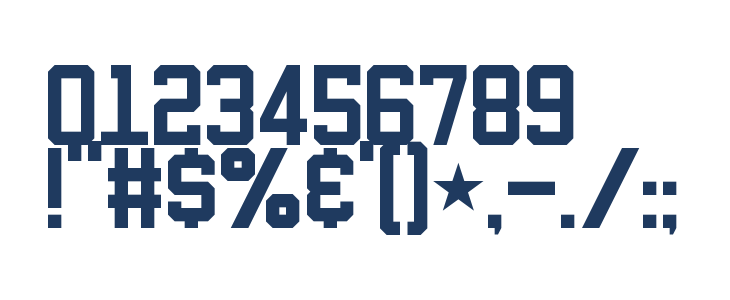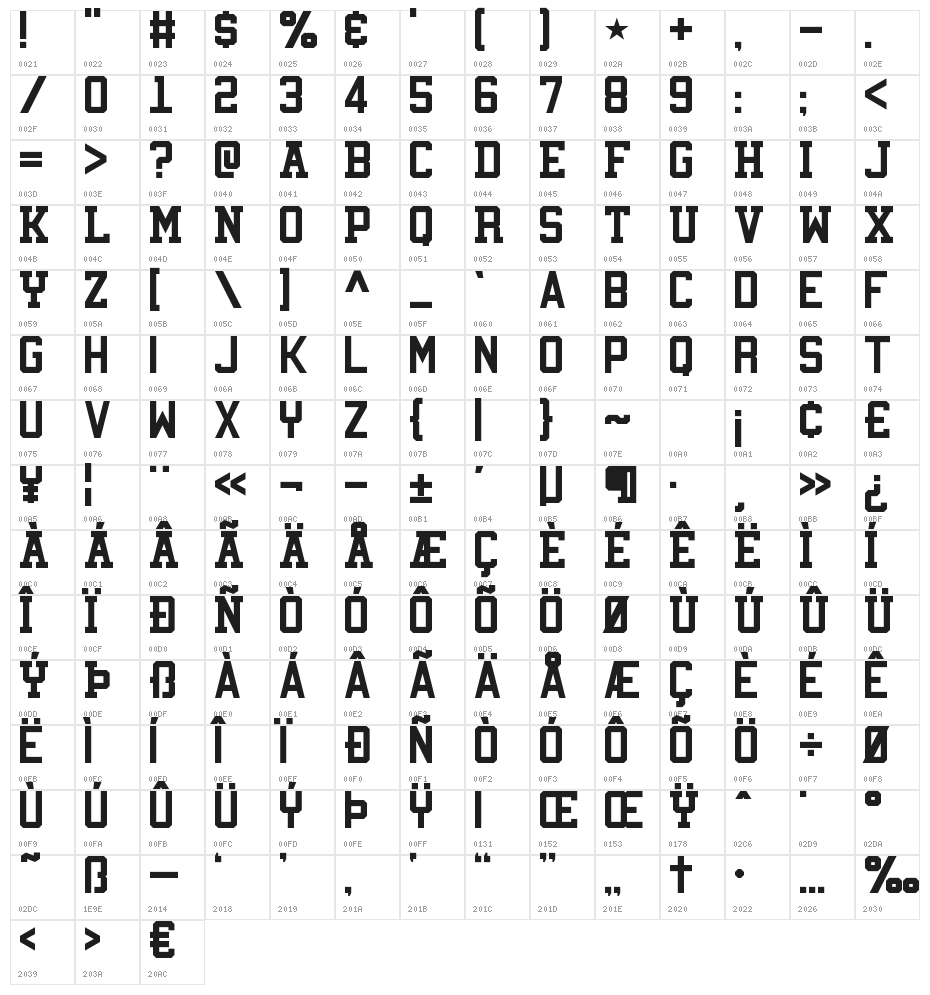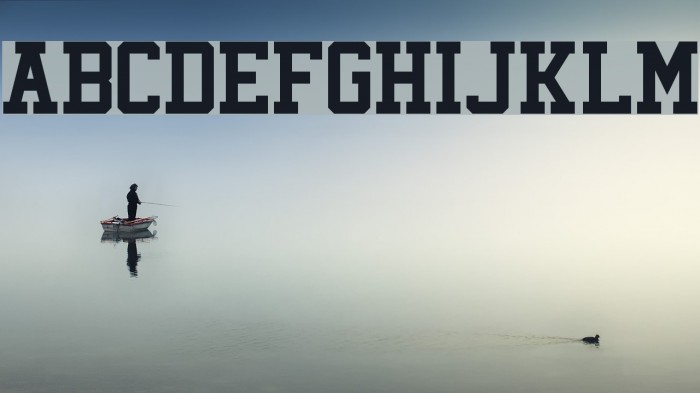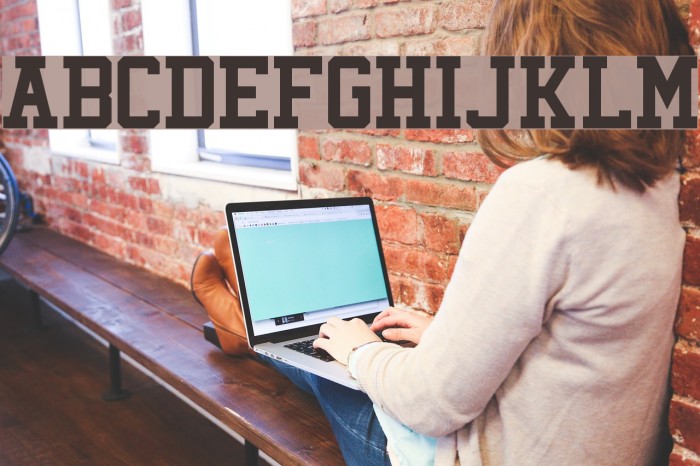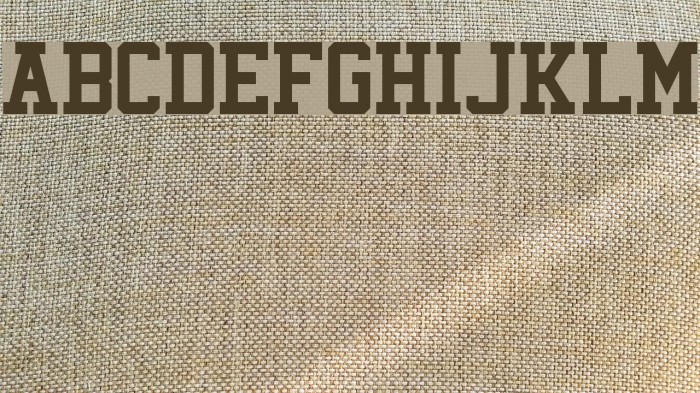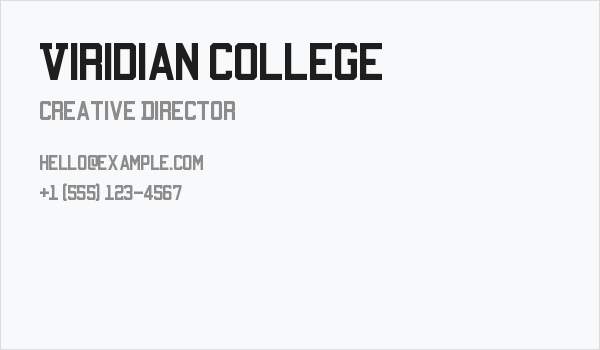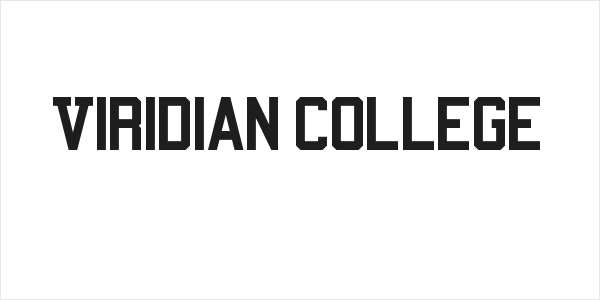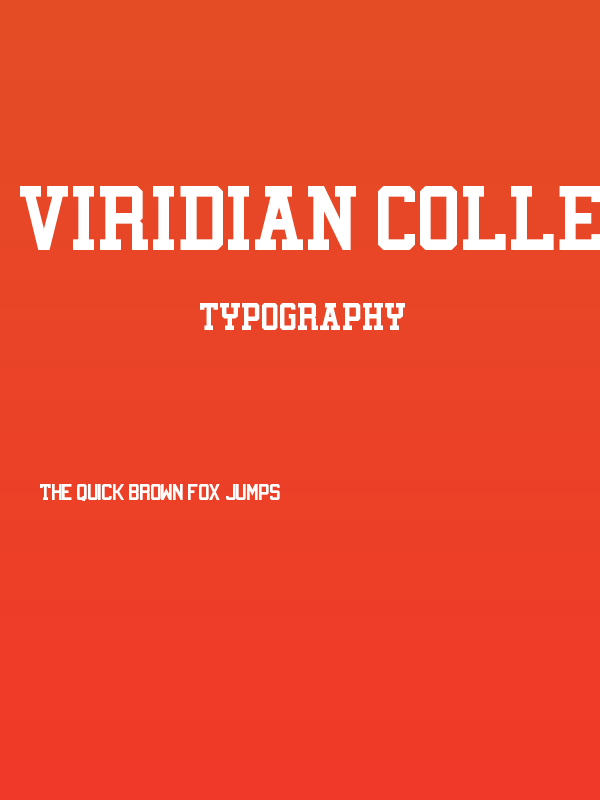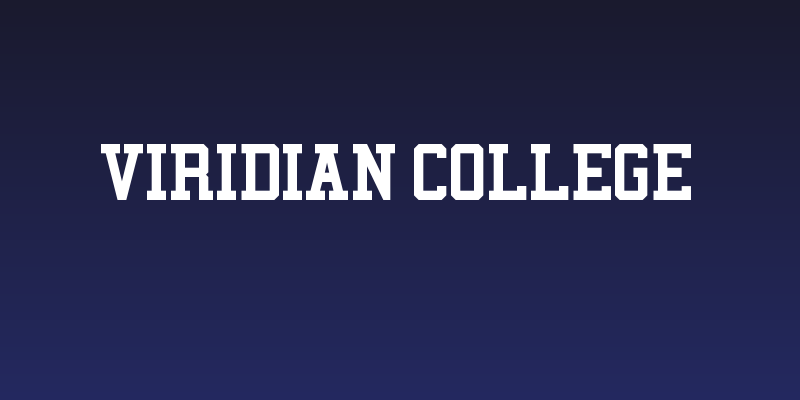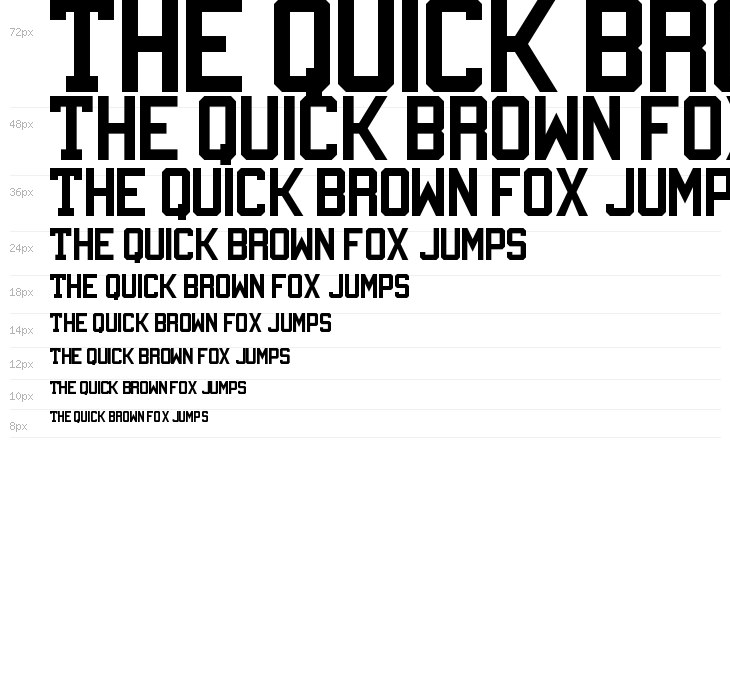
Viridian College Font
Viridian College Description
This font features a bold, collegiate style with strong, angular serifs and a robust presence. The uppercase letters are uniform in height, giving a sense of stability and authority. The lowercase letters maintain the same boldness, ensuring readability and consistency across different text sizes. The numerals are equally bold, with a geometric design that complements the overall style. Special characters are designed to match the bold, angular aesthetic, making them stand out while remaining cohesive with the rest of the font. This font is ideal for projects that require a strong, impactful look, such as sports team branding, college-themed designs, or any application where a bold statement is needed.
| Proposed Projects | Ideal for sports team branding, college-themed designs, posters, and impactful headlines. |